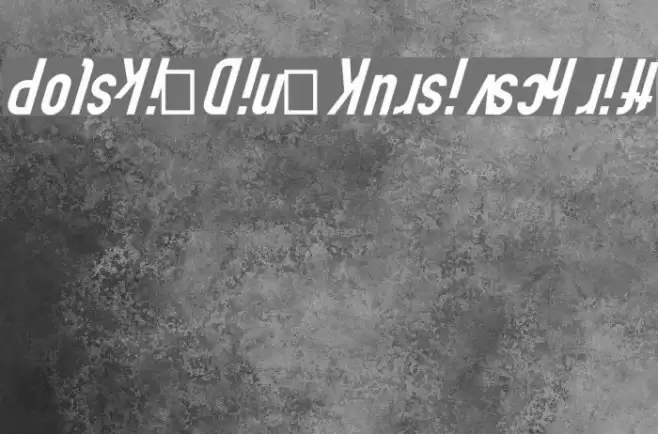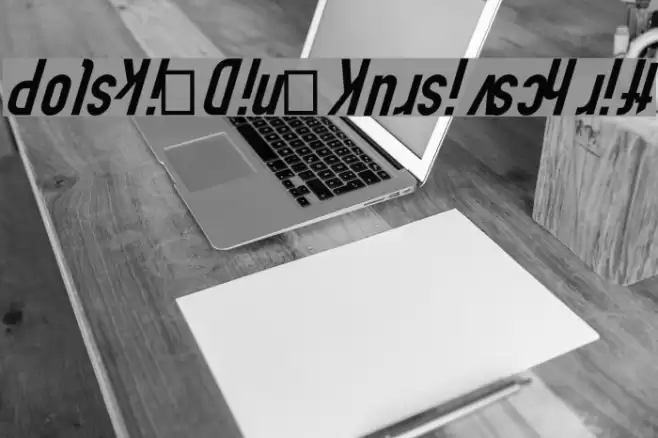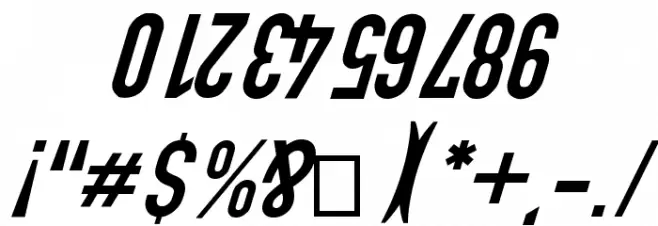
Polski Din Kursivschrift Font
Polski Din Kursivschrift Description
This font features a dynamic and modern design with a distinct slant, giving it a sense of motion and energy. The characters are clean and streamlined, with a uniform stroke width that maintains consistency throughout the alphabet. The uppercase letters are bold and assertive, while the lowercase letters maintain a cohesive style that complements the overall design. Numbers and special characters are crafted with the same attention to detail, ensuring readability and aesthetic appeal. The font's slanted style adds a unique flair, making it suitable for projects that require a contemporary and stylish look.
A modern, slanted font with clean lines and uniform stroke width from Uncategorized fonts.
- Proposed Projects: Ideal for branding, advertising, and editorial design where a modern and dynamic appearance is desired.